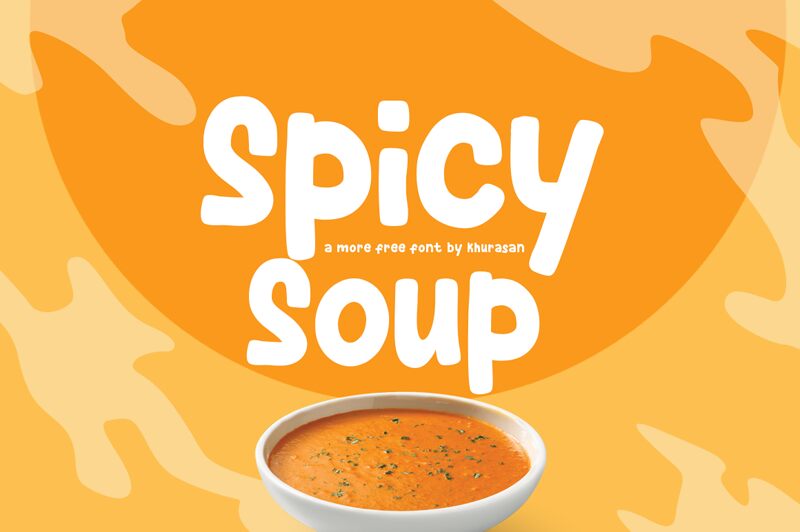
Spicy Soup
Spicy Soup, created by Khurasan, is a delightful display font with a cartoonish twist. Its semi-bold weight adds a touch of playfulness to any project.
Ideal for children's books, animated films, or even party invitations, this font injects personality and charm into your designs. With its bold strokes and unique style, Spicy Soup brings words to life on posters, packaging, and websites alike.
Let your creativity run wild as you explore the endless possibilities of this whimsical typeface.